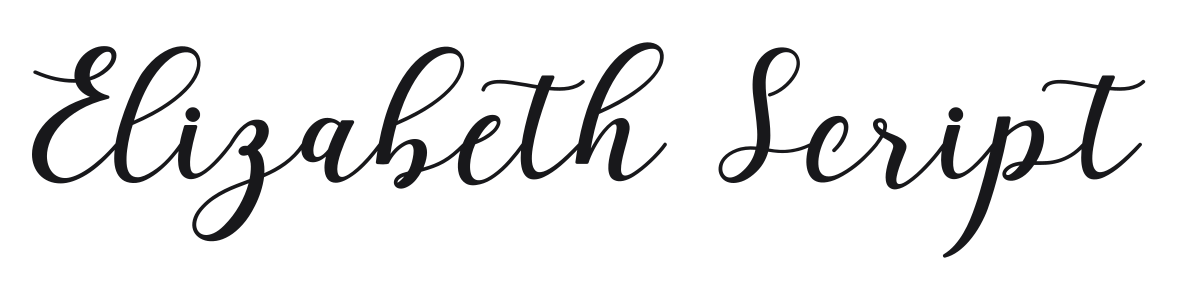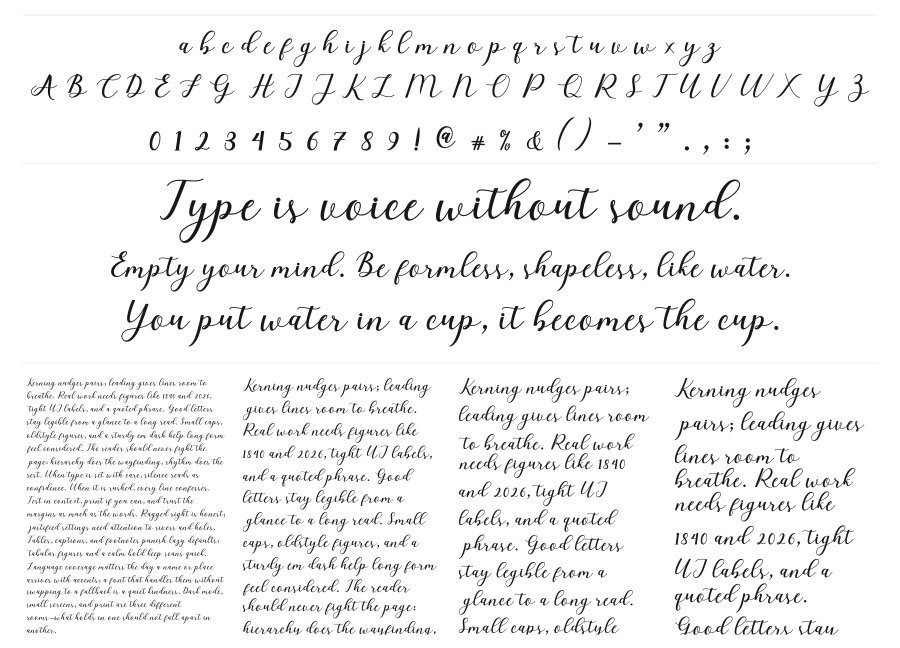
Elizabeth Script
Elizabeth Script is a flowing formal calligraphic script drawn with the elegant stroke contrast of traditional copperplate penmanship. Sweeping ascender loops and graceful descender curls give it an airy, celebratory quality that reads as both refined and warm. It suits wedding stationery, beauty branding, and any context where handcrafted elegance is the goal.